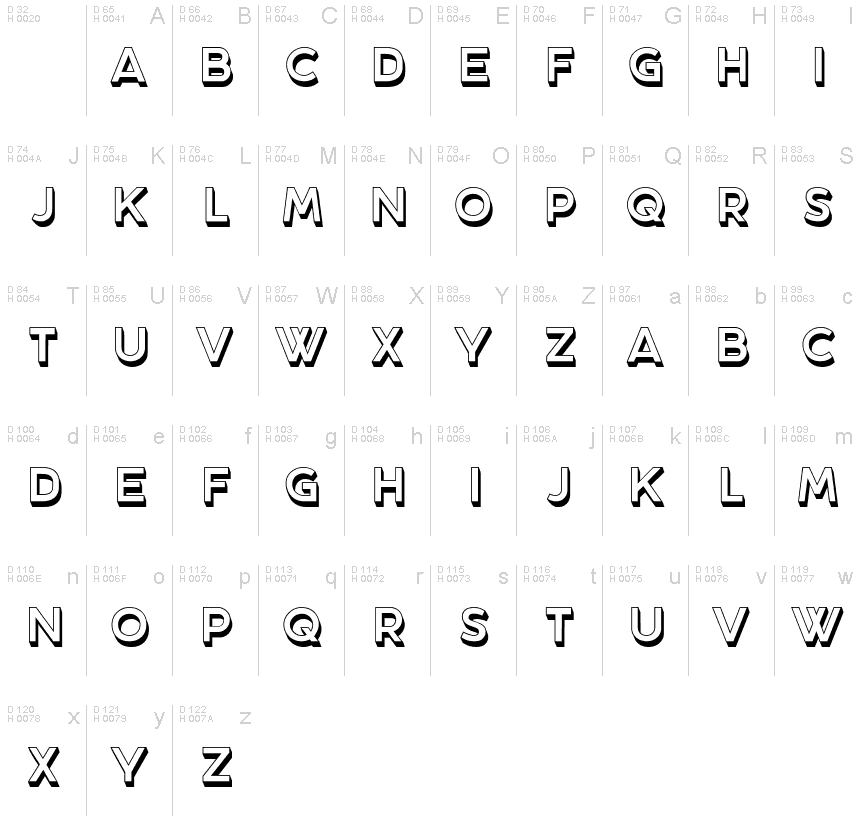
Eyedropper Regular
Eyedropper is a captivating display font designed by Vladimir Nikolic. Its 3D sans style elevates any project, whether it's a poster for a music festival or a logo for an edgy fashion brand. This attention-grabbing typeface is perfect for titles, headlines and other focal points in design projects. With its unique look, Eyedropper is sure to impress and add an extra dimension to any creative venture. Its versatility also makes it suitable for digital projects such as websites and video editing. Whether you're creating something bold or minimalistic, Eyedropper has got you covered with its semi-bold font weight and moderate width.